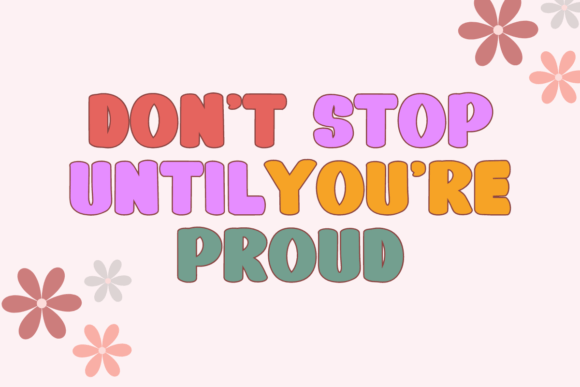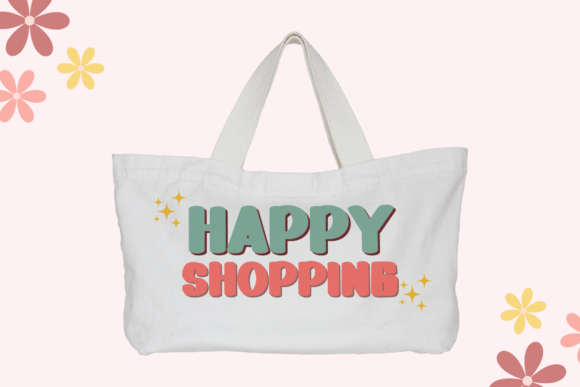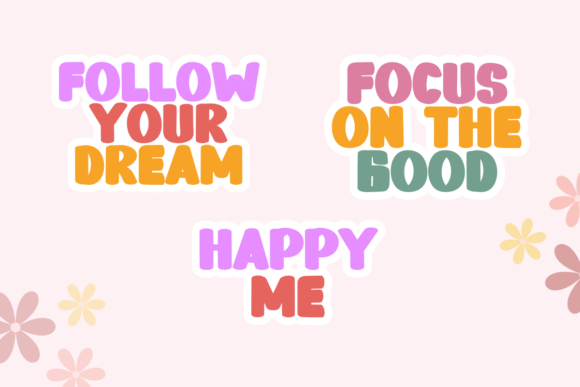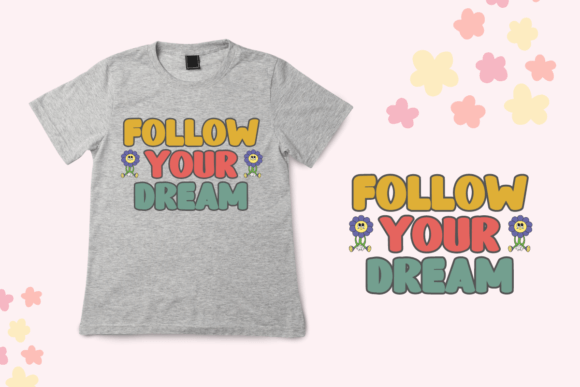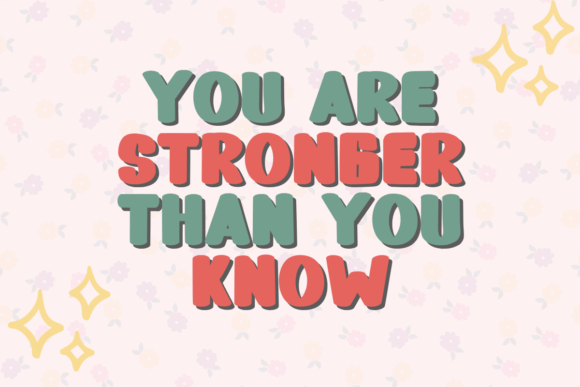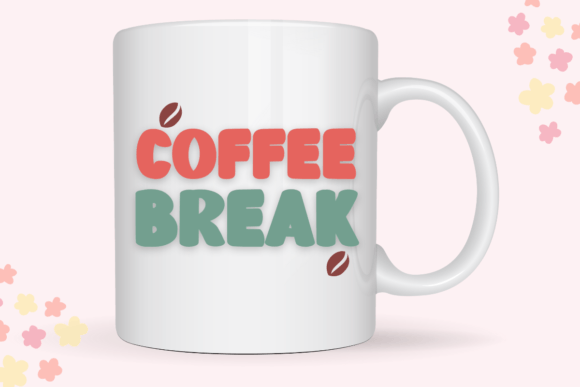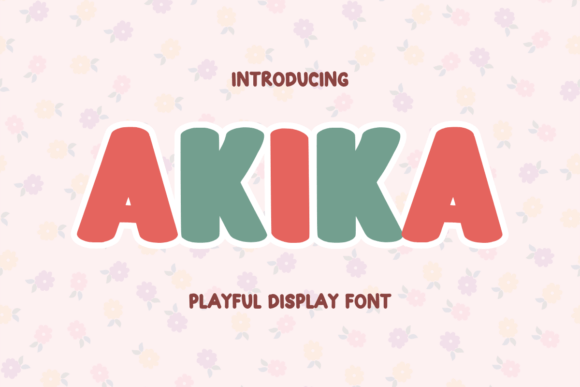
Introducing Akika Font: The Bold Display Font to Elevate Your Designs
Are you tired of using the same old fonts in your designs? Look no further! Akika Font is here to revolutionize your creations with its cool, bold, and eye-catching style. This stunning display font is perfect for designers and crafters who want to add a touch of uniqueness and beauty to their work.
What is Akika Font?
Akika Font is a modern, bold display font that is designed to make a statement. Its sleek and clean lines make it perfect for a variety of design projects, from posters and flyers to logos and branding materials. With its bold and confident style, Akika Font is sure to grab attention and leave a lasting impression.
Key Features of Akika Font
- Bold and Eye-Catching: Akika Font is designed to stand out from the crowd. Its bold and confident style makes it perfect for headlines, titles, and other display text.
- Unique and Beautiful: Akika Font has a unique and beautiful style that will add a touch of elegance to your designs. Its sleek lines and curves make it perfect for a variety of design projects.
- Posters and Flyers: Akika Font is perfect for creating eye-catching posters and flyers. Its bold and confident style makes it perfect for headlines and titles.
- Logos and Branding: Akika Font is a great choice for logos and branding materials. Its unique and beautiful style makes it perfect for creating a lasting impression.
- Social Media Graphics: Akika Font is perfect for creating social media graphics, including Facebook posts, Instagram stories, and Twitter headers.
- Use it Sparingly: Akika Font is a bold font, so it’s best to use it sparingly. Use it for headlines and titles, and a simpler font for body text.
- Experiment with Colors: Akika Font looks great in a variety of colors. Experiment with different colors to find the one that works best for your design.
- Pair it with Other Fonts: Akika Font pairs well with a variety of other fonts. Experiment with different font combinations to find the one that works best for your design.
Akika Font is more than just a font – it’s a design inspiration. With its unique and beautiful style, Akika Font can inspire you to create something truly amazing. Here are a few ways to get inspired by Akika Font:
- Browse Design Galleries: Browse design galleries to see how other designers are using Akika Font. Get inspiration from their designs and use it to spark your own creativity.
- Experiment with Different Styles: Experiment with different styles and techniques to find the one that works best for you. Try using Akika Font in different contexts and see how it looks.